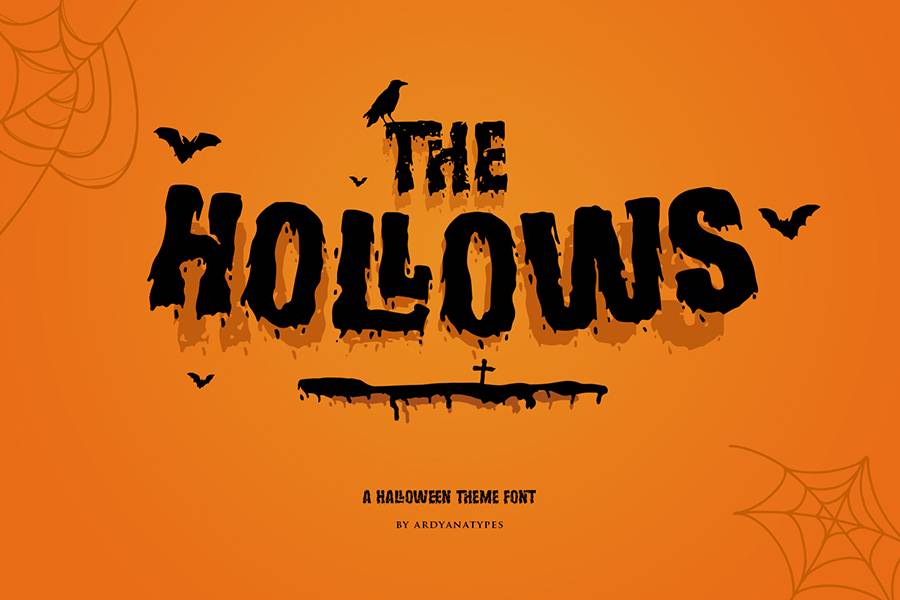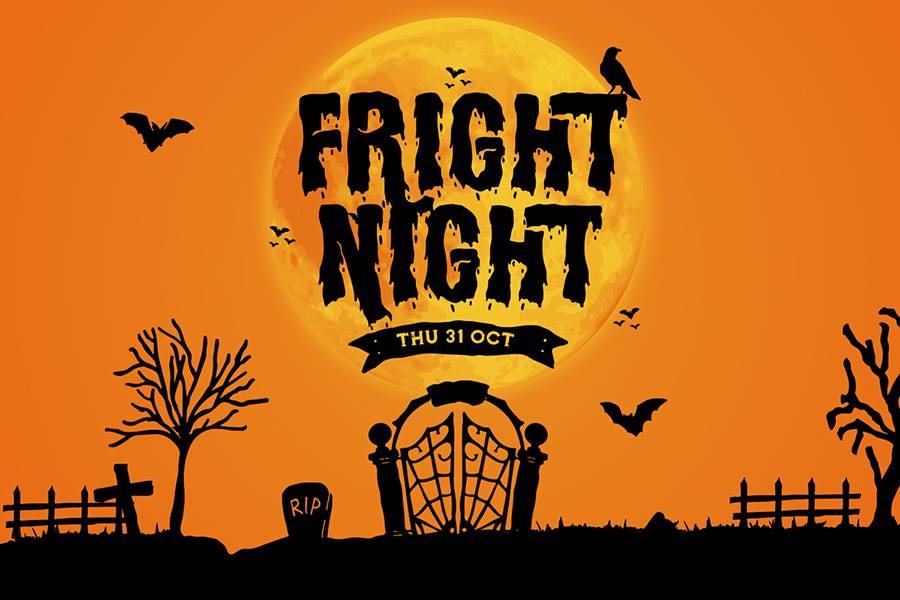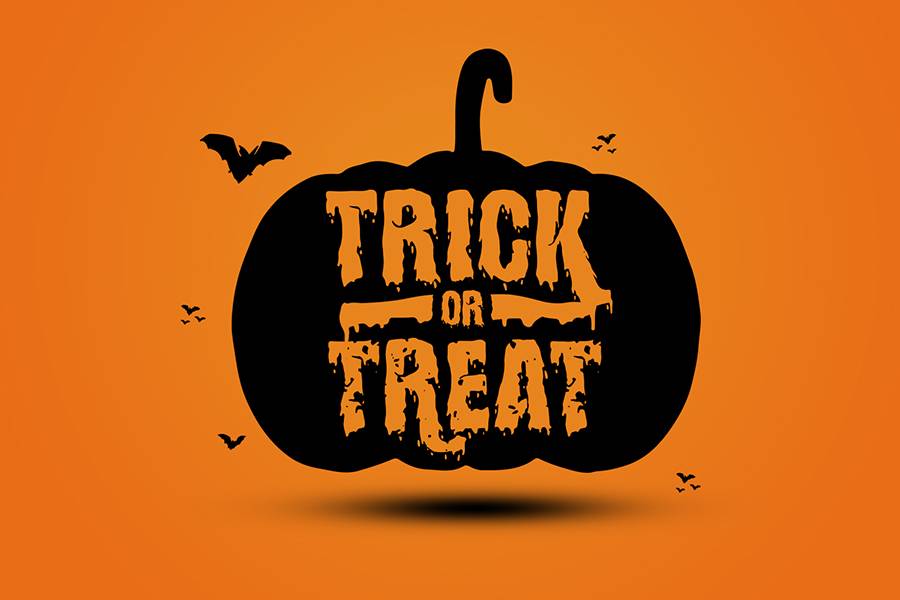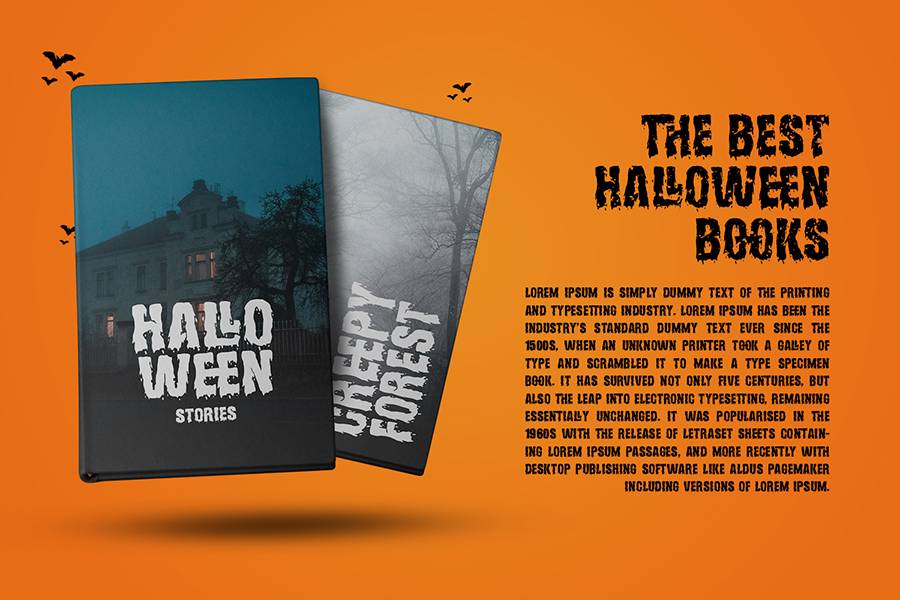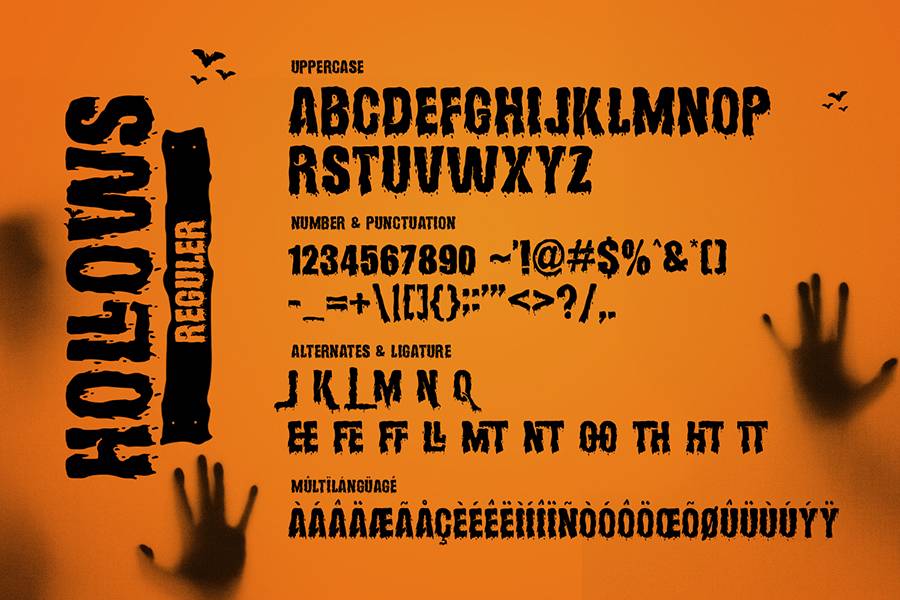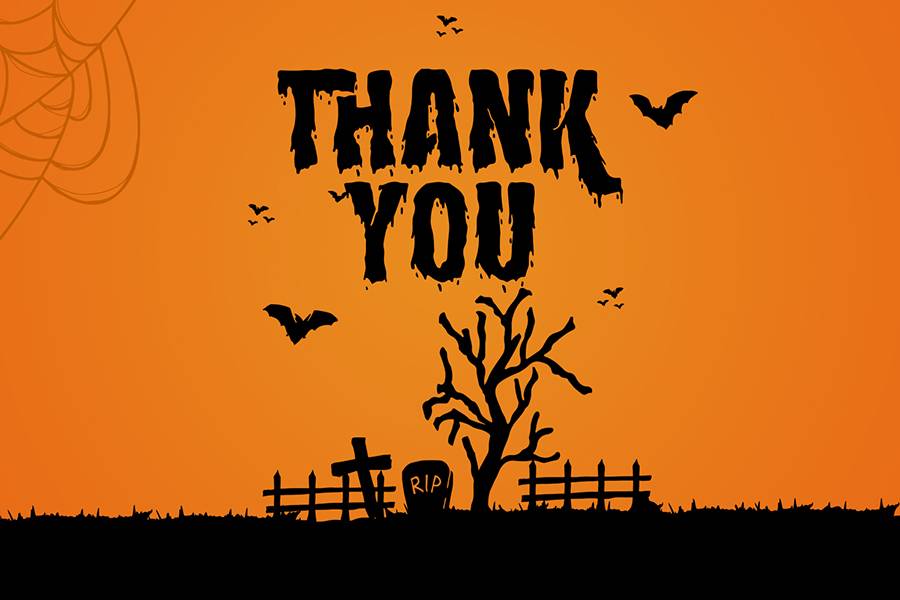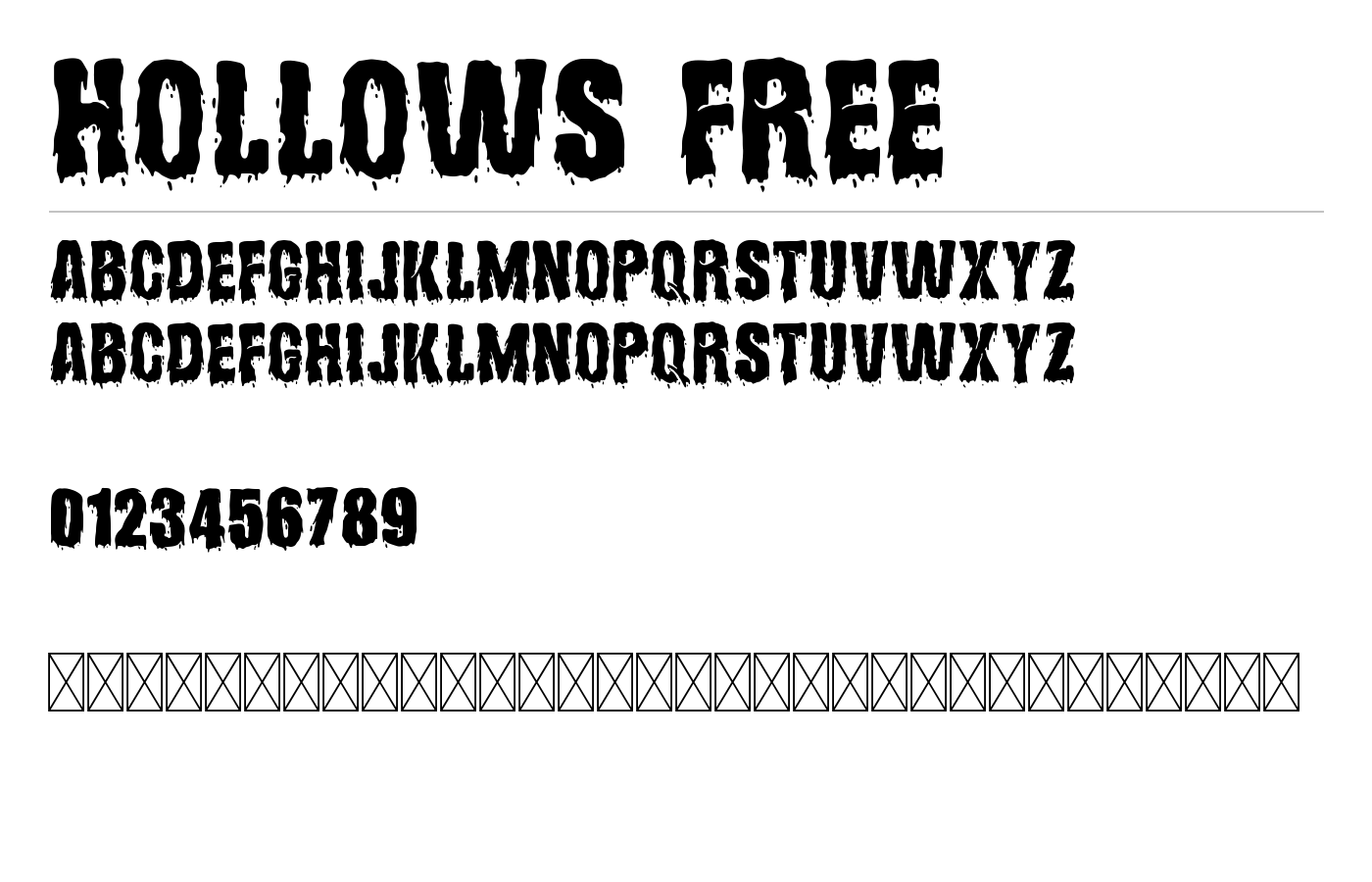
Hollows Spooky Display is a bold, condensed sans serif font with a dripping, irregular edge that gives it a creepy, horror-inspired vibe. Its heavy weight and rough texture make it perfect for eye-catching headlines or themed designs related to Halloween, haunted attractions, or spooky events. This font works best for posters, logos, and packaging where a playful yet eerie atmosphere is desired.
Hollows Spooky Display Font
About Hollows Spooky Display Font
| Font family | Hollows Spooky Display Font |
| Release date | 2019-10-09 |
| Designer | Ardyanatypes |